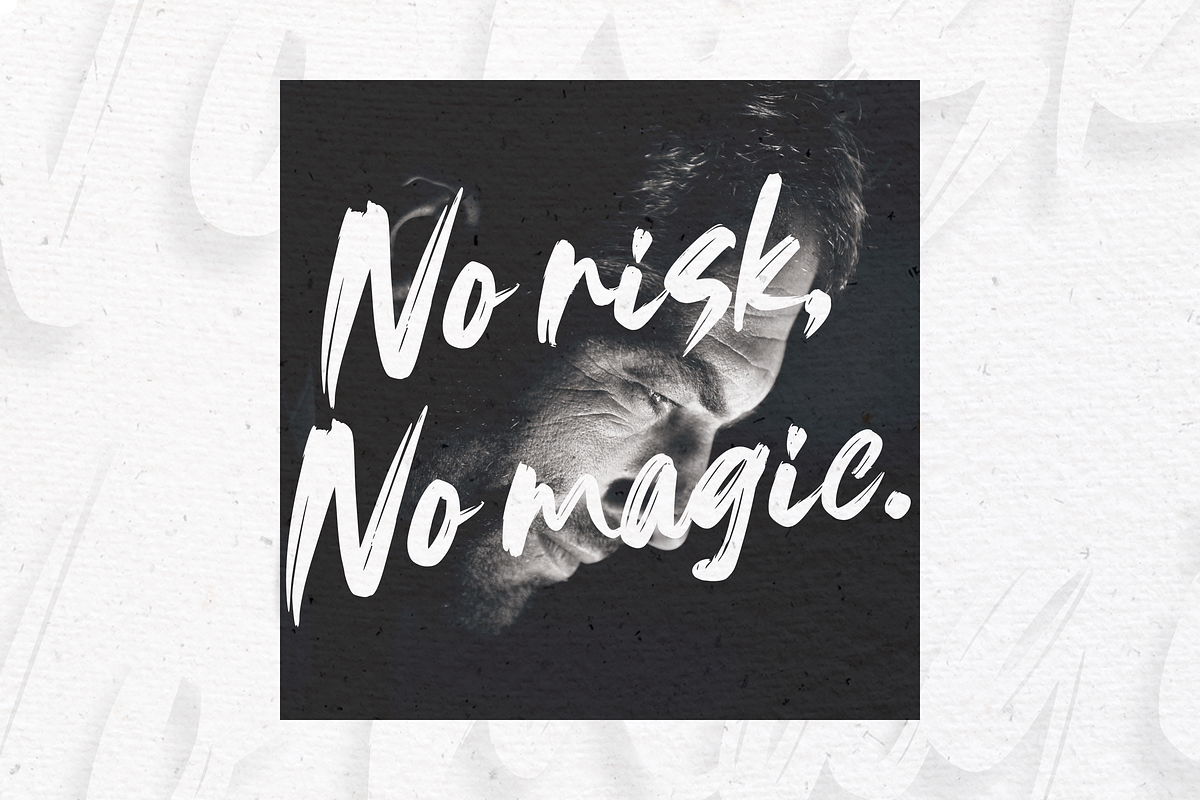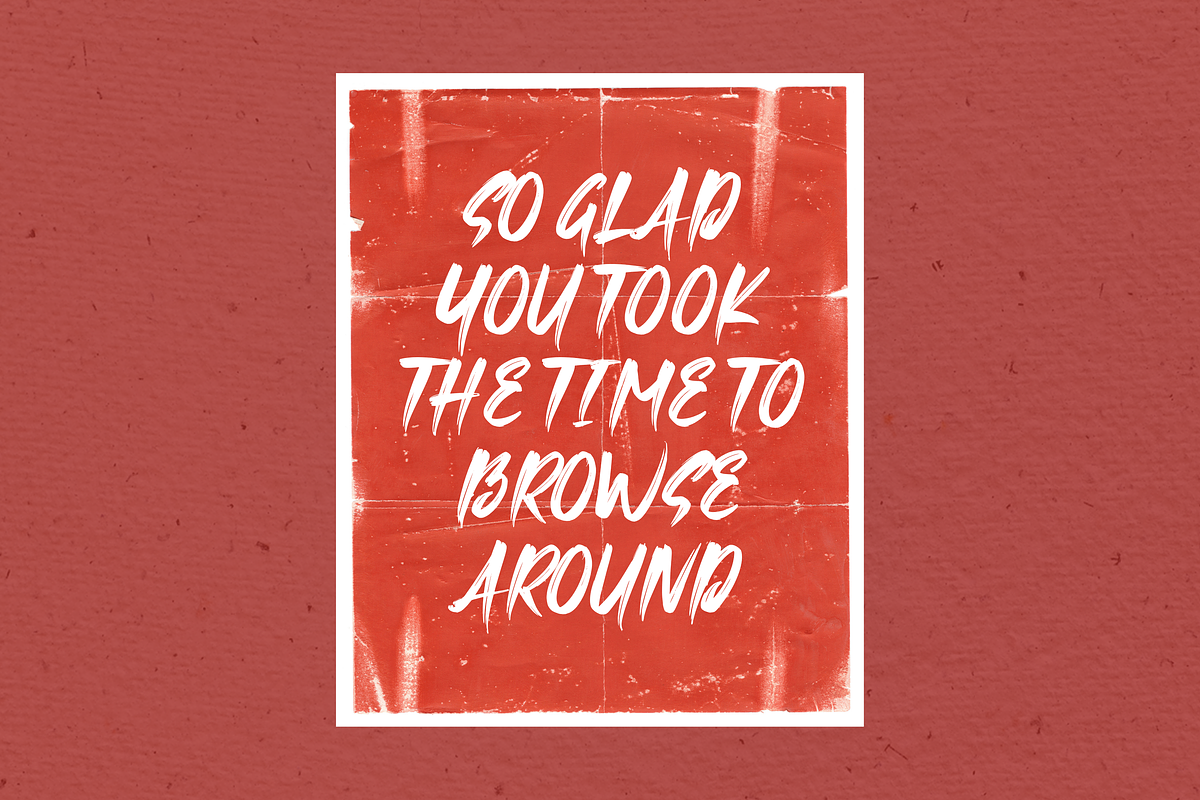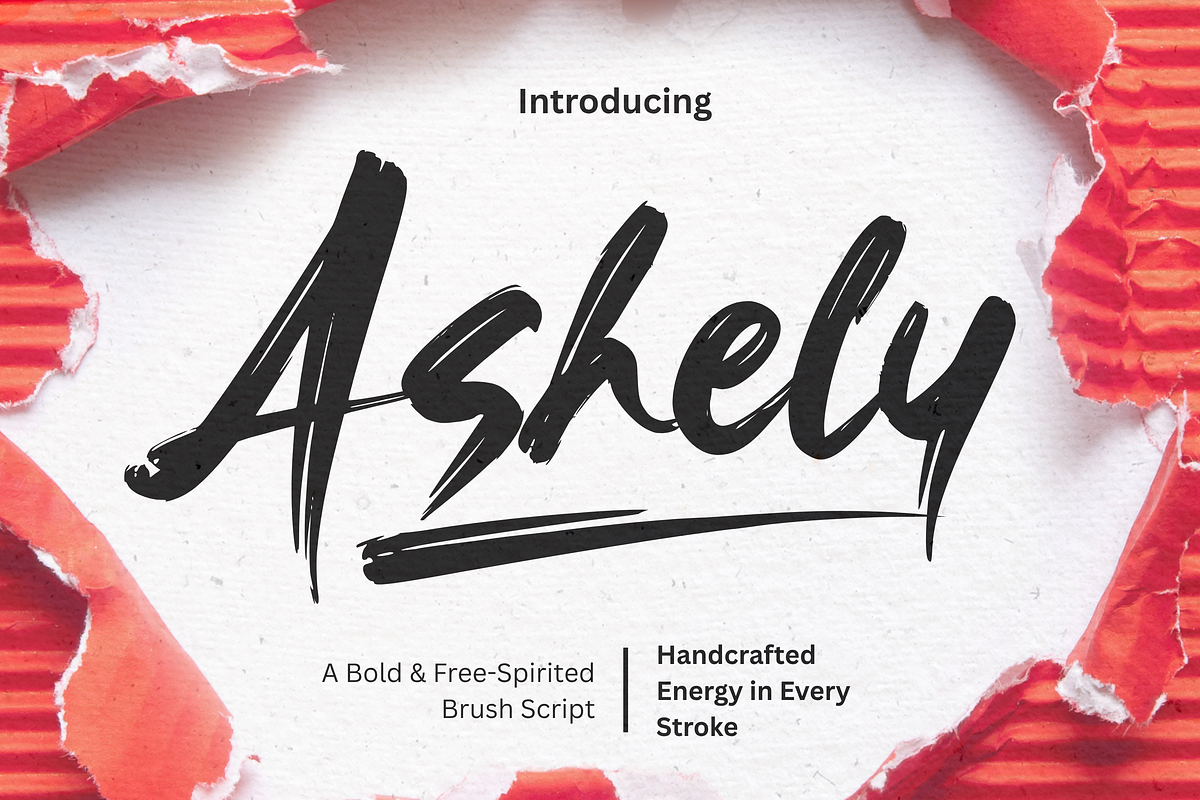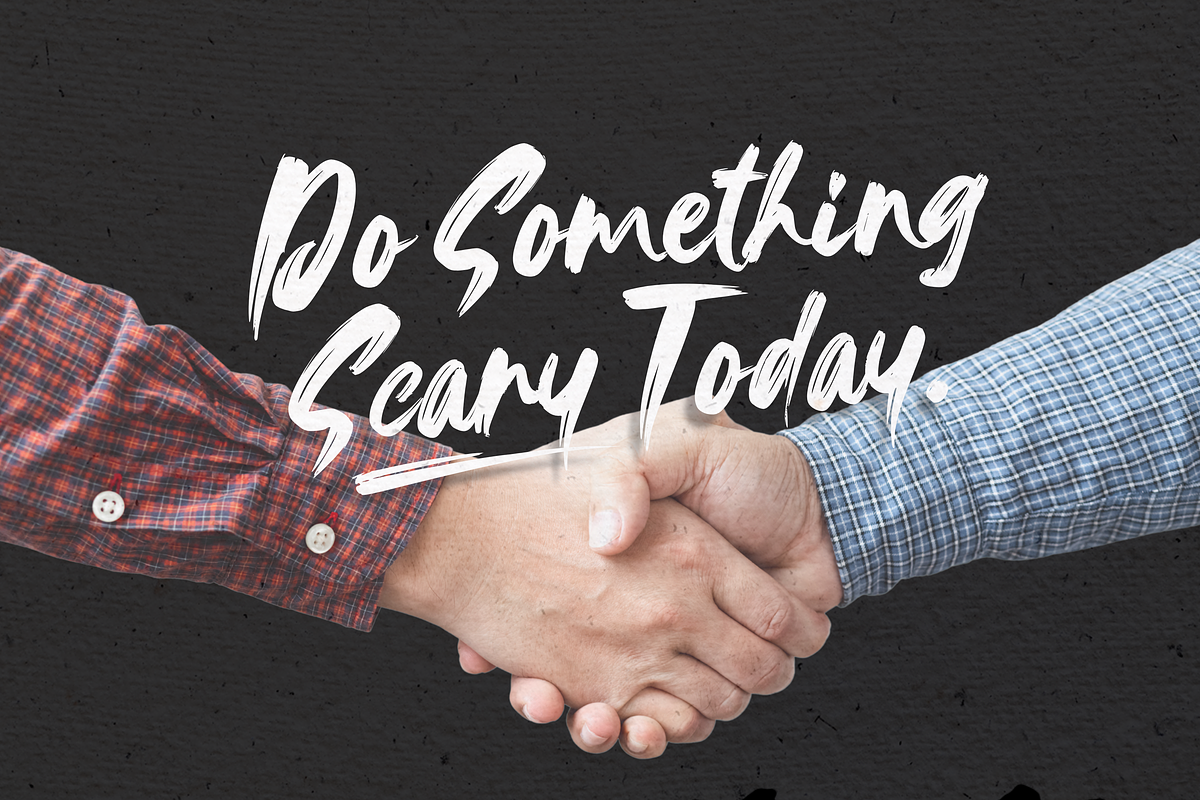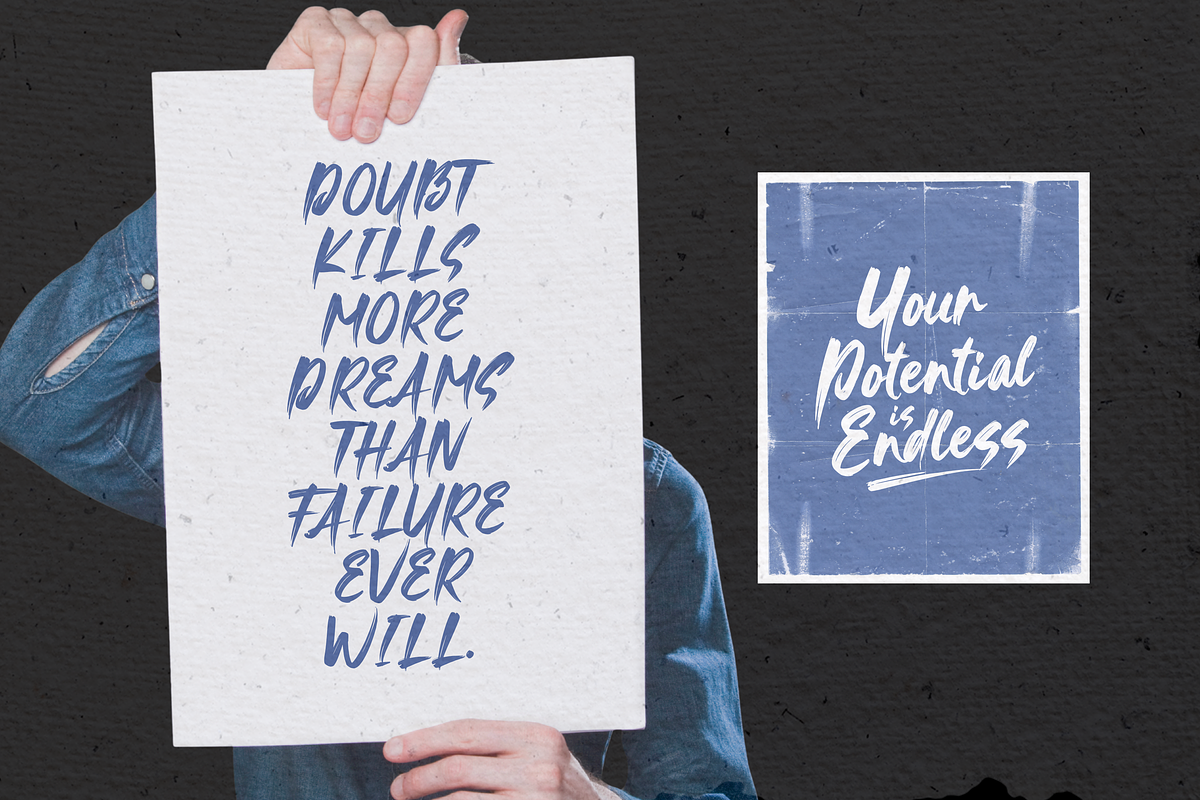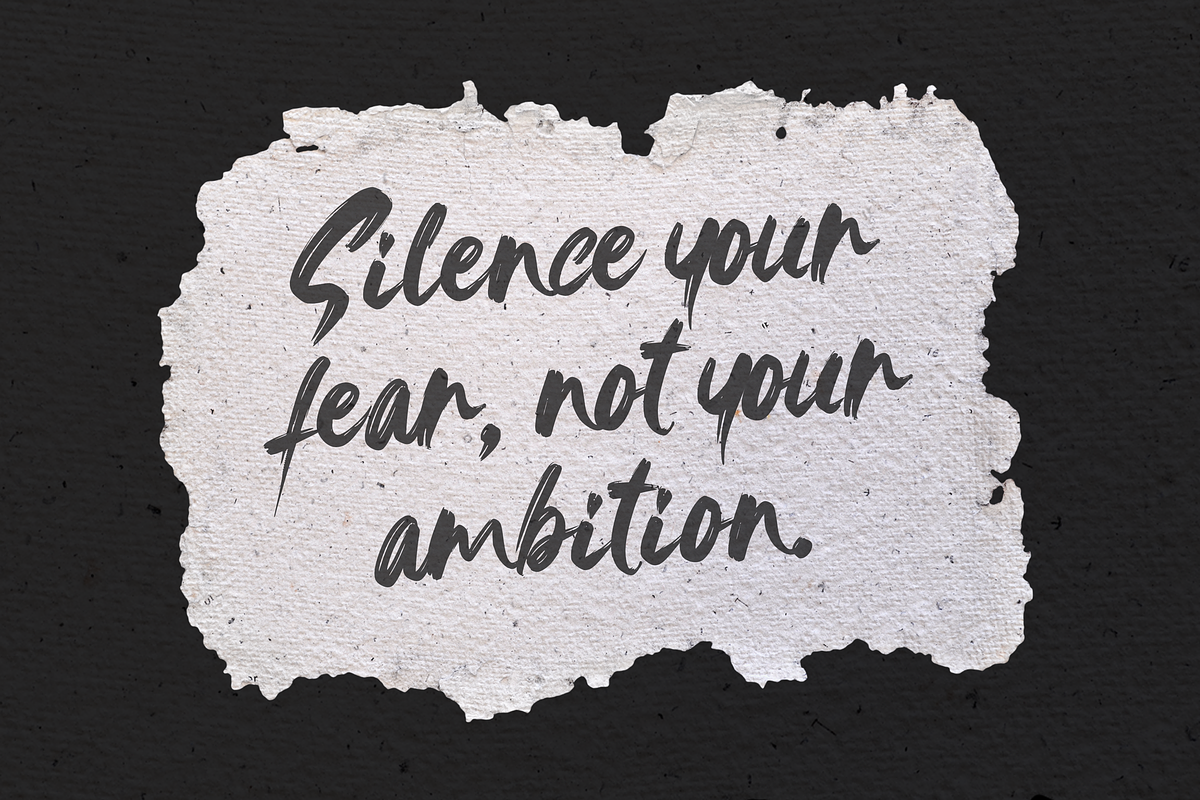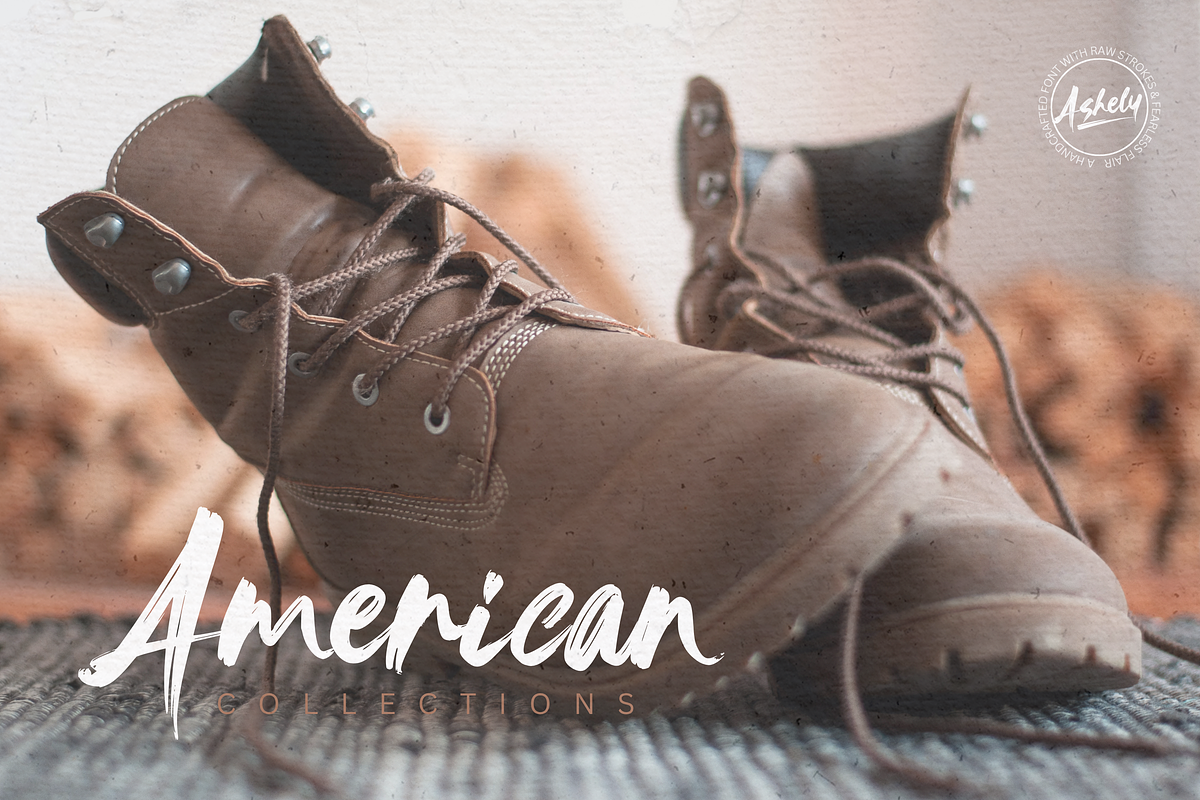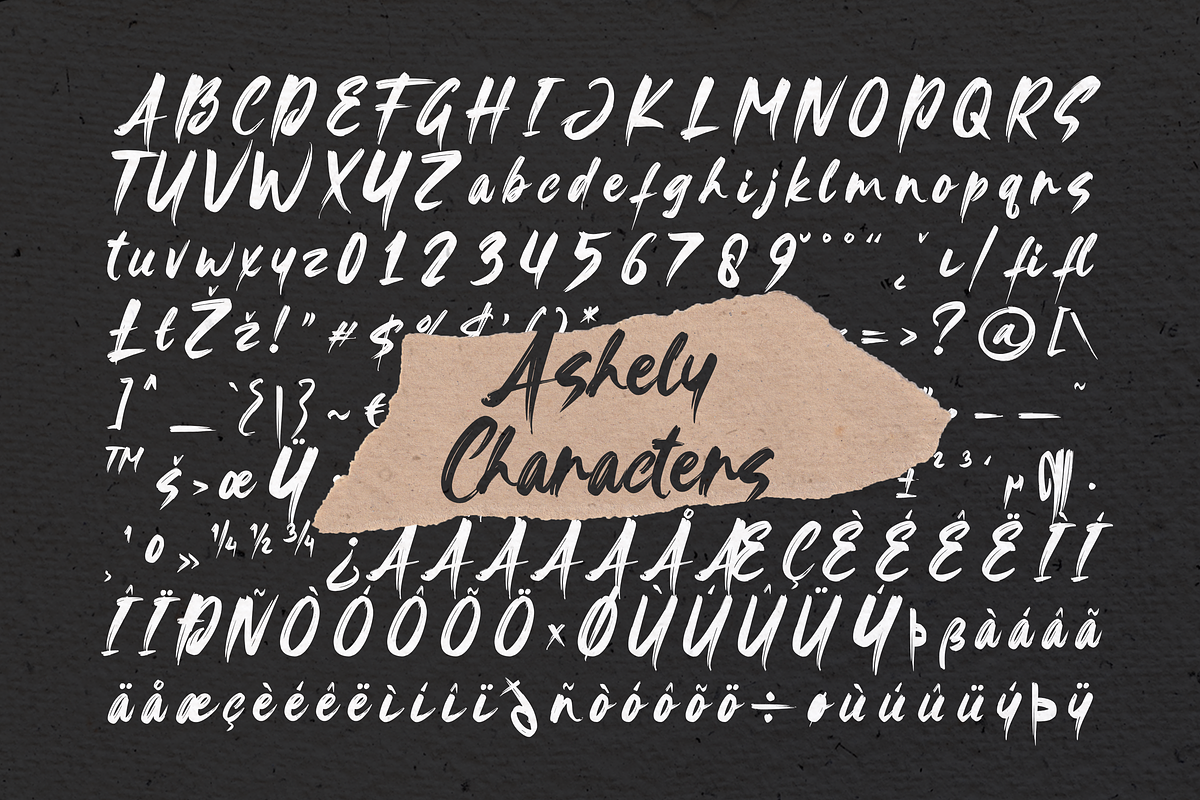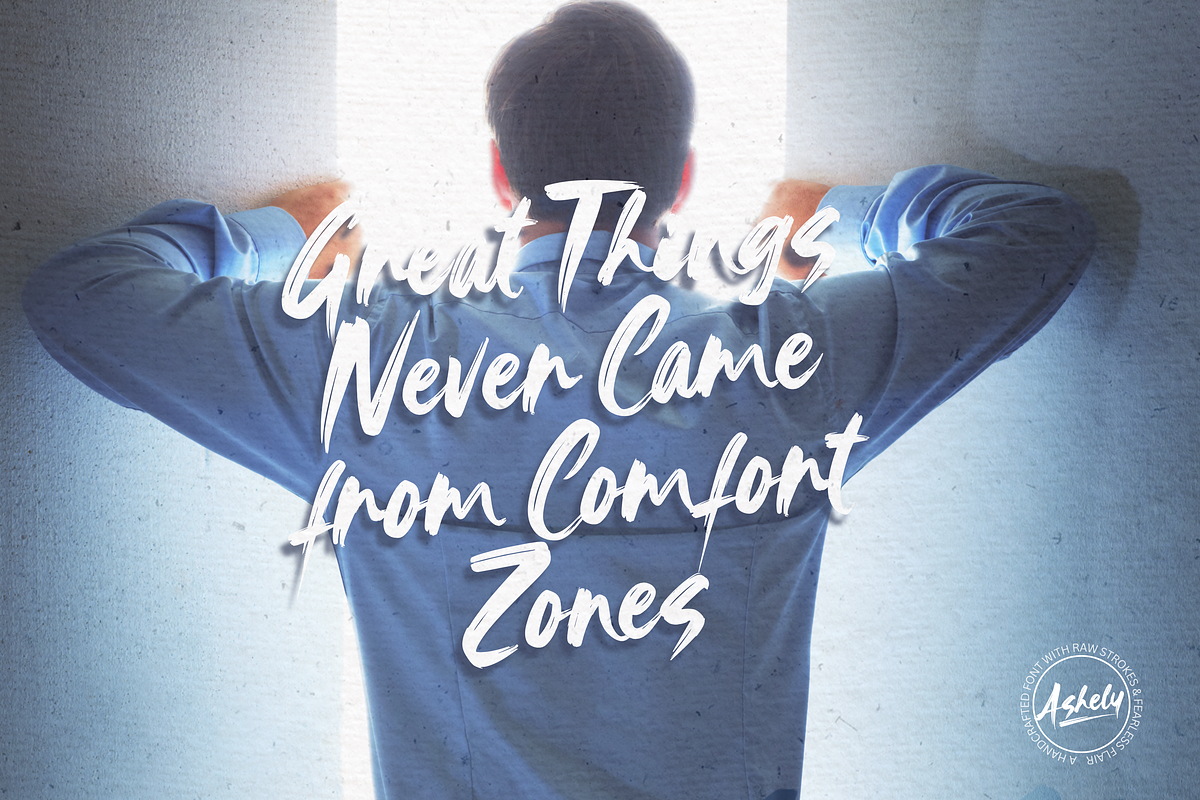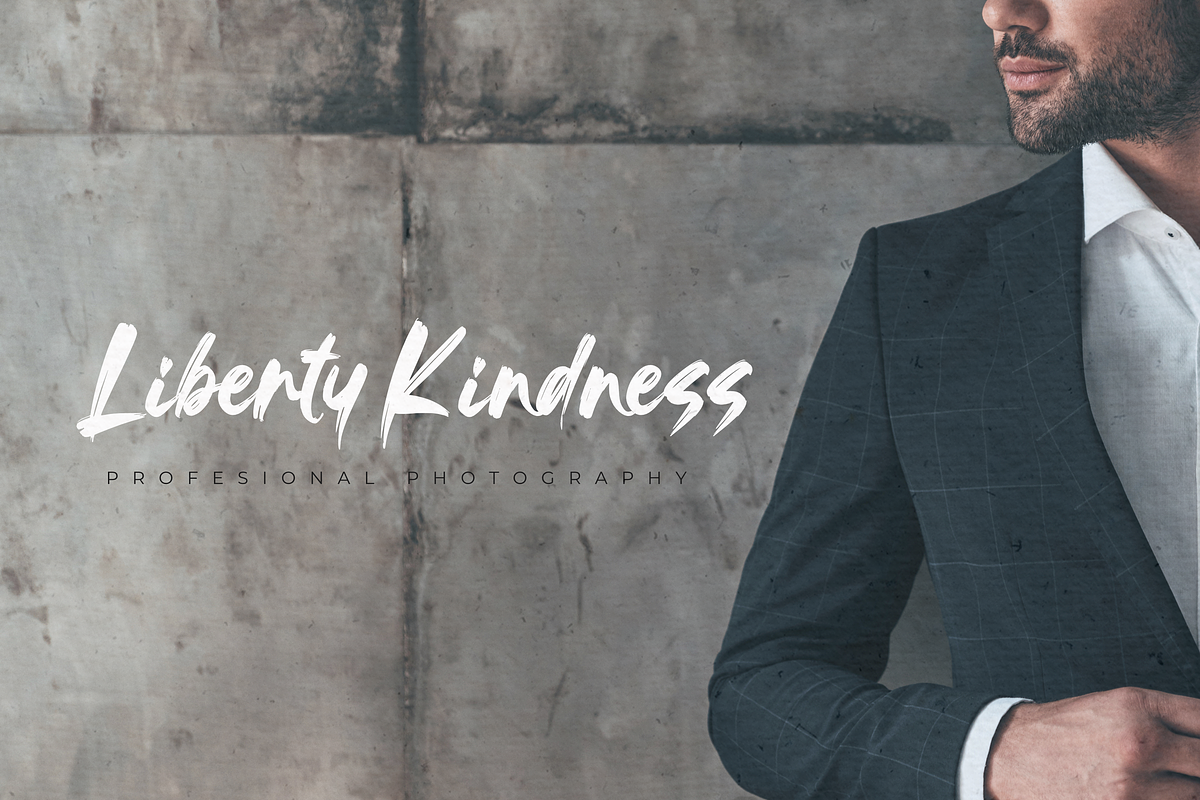
Ashely
Introducing Ashely – A Bold & Free-Spirited Brush Script Say hello to Ashely, a vibrant brush script font with an effortlessly stylish attitude. Crafted to mimic real hand-painted strokes, Ashely brings natural texture and fluidity into every letter — perfect for designs that want to stand out with character and charm.
From bold branding and product packaging to standout social media graphics, posters, or merch – Ashely gives your words a sense of motion and personality.
Included in the font package: • Full set of upper & lowercase script letters • Punctuation & multilingual support • Bonus swashes and alternates to elevate your compositions
Let your creativity flow with Ashely – where every stroke speaks boldness, freedom, and flair.